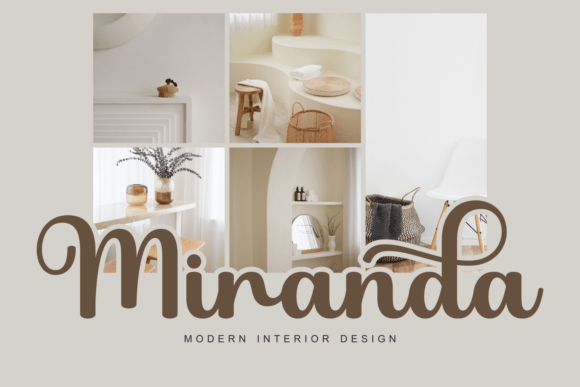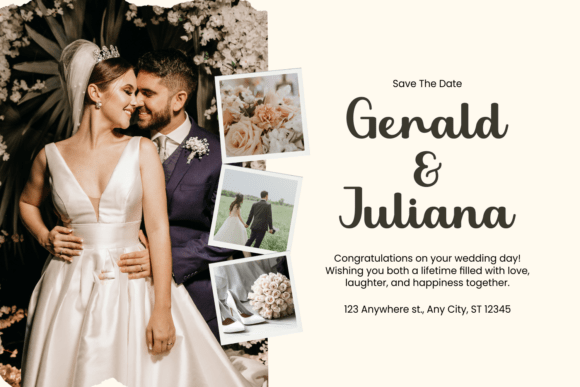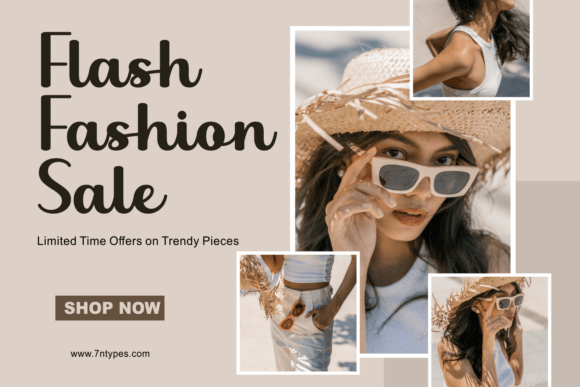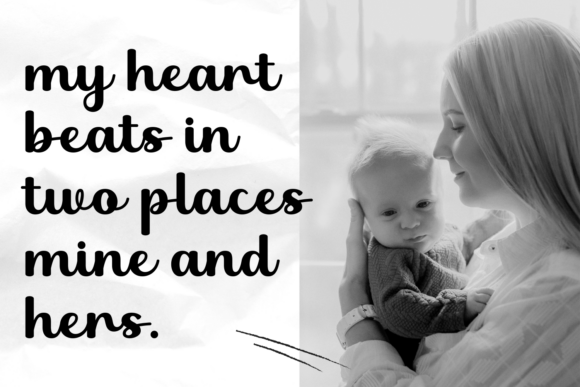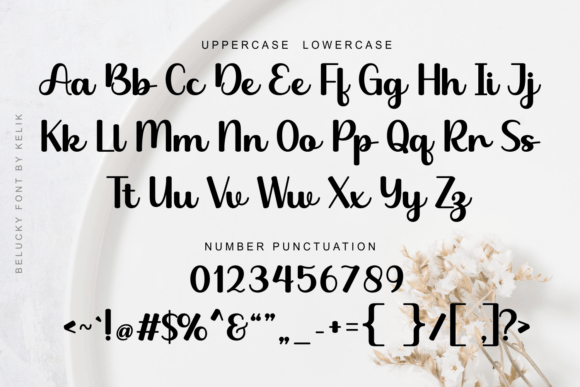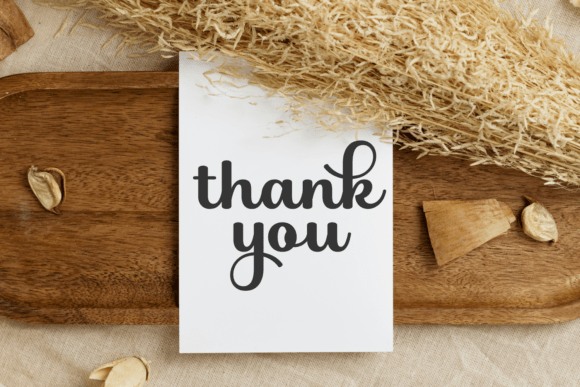
The Magic of Handwritten Touch: Unveiling Belucky Font
Do you remember the first time you saw a beautifully handwritten love letter or a wedding invitation that made your heart skip a beat? For many of us, it’s the delicate strokes and elegant curves of handwritten text that evoke emotions and create lasting impressions. As designers, we’re always on the lookout for that special something that adds a personal touch to our creations.
Enter Belucky Font, a stunning script font that brings a touch of elegance and sophistication to any design. Whether you’re creating wedding invitations, thank you cards, or business cards, Belucky Font is the perfect choice to add a handwritten touch that speaks volumes. Its versatility and style make it a valuable asset for designers, allowing them to create unique and memorable designs that leave a lasting impression.
Belucky Font Key Features
- Unique Characteristic: The font features a unique, hand-drawn style with intricate details and flourishes, adding a touch of elegance and sophistication to any design.
Belucky Font Review
As a designer, I was excited to dive into the Belucky Font and see if it lived up to its unique name. ✨ The font’s quirky, cursive design is sure to catch the eye, and it’s perfect for adding a touch of whimsy to your next project.
- Unique design: The Belucky Font’s cursive script is unlike anything else out there, making it a great choice for designers looking to add some personality to their work.
- High-quality glyphs: The font’s glyphs are well-designed and look great at various font sizes.
- Customizable: The Belucky Font offers a range of customization options, including ligatures and swashes, to help you get the look you want.
- No bold or italic styles: While the font’s script design is beautiful, it’s not ideal for headings or emphasis, as it doesn’t come in bold or italic styles.
- May be too ornate: Depending on the design, the Belucky Font’s ornate script may be too much for some projects, so be sure to use it judiciously.
Overall, I’d say the Belucky Font is a solid choice for designers looking to add a touch of personality to their work. While it has some limitations, its unique design and high-quality glyphs make it a great addition to any designer’s toolkit.
Belucky Font: A Practical Application Guide
Tips for Getting the Most Out of Belucky Font
To get the most out of the Belucky Font, use it sparingly to add a touch of elegance to your design. The font is best used in headings and titles, as it can be overwhelming if used too much in the body of your text.
The Belucky Font is ideal for use in wedding invitations, birthday cards, and other celebratory designs. It can also be used in branding and marketing materials to add a touch of sophistication and elegance.
Alternatives to Belucky Font
Great Vibes is a modern, elegant script font that is perfect for creating a friendly and approachable atmosphere. It is ideal for use in branding, advertising, and editorial content where a touch of sophistication is required.
Compared to Belucky Font, Great Vibes has a more refined and polished look, making it suitable for high-end projects. However, it lacks the quirky, hand-drawn feel of Belucky Font.